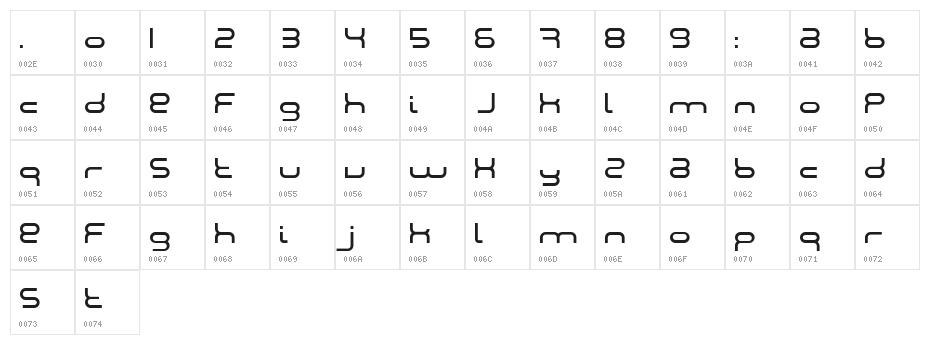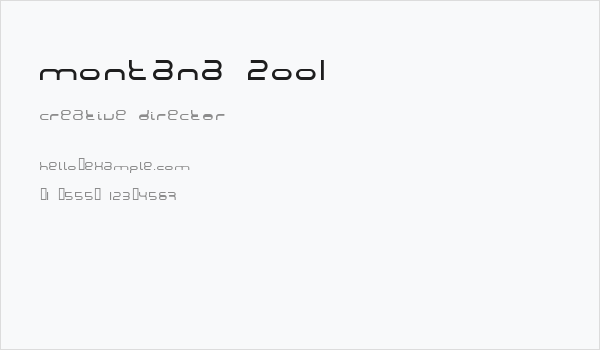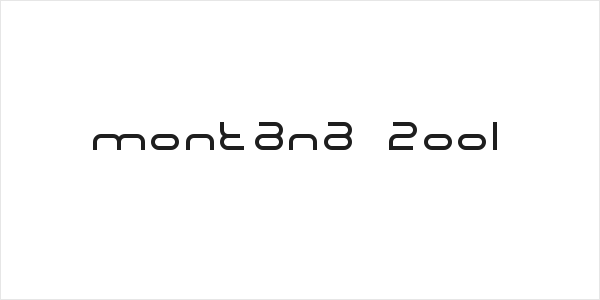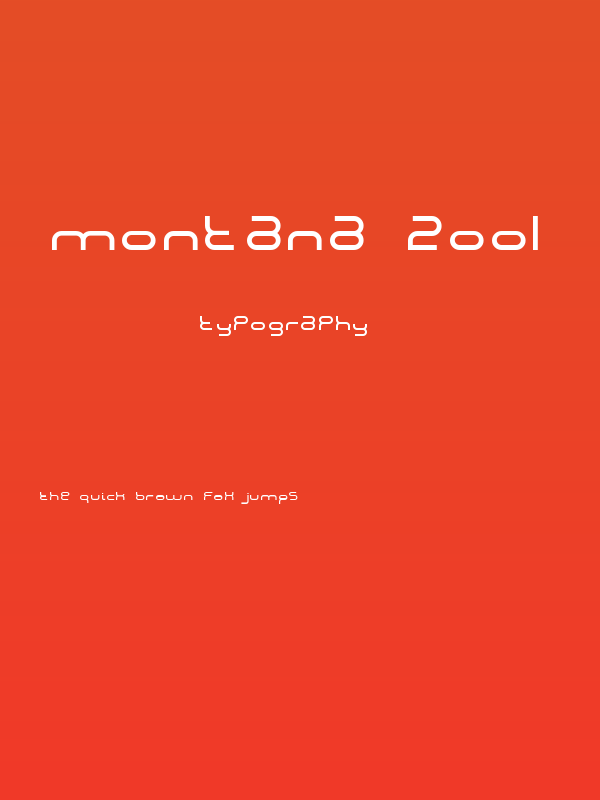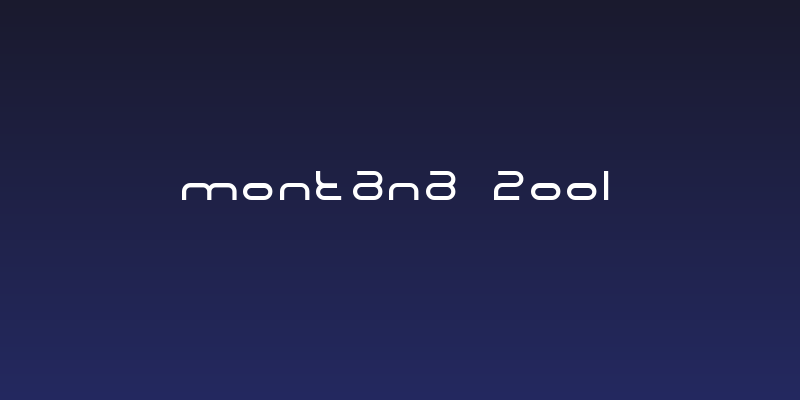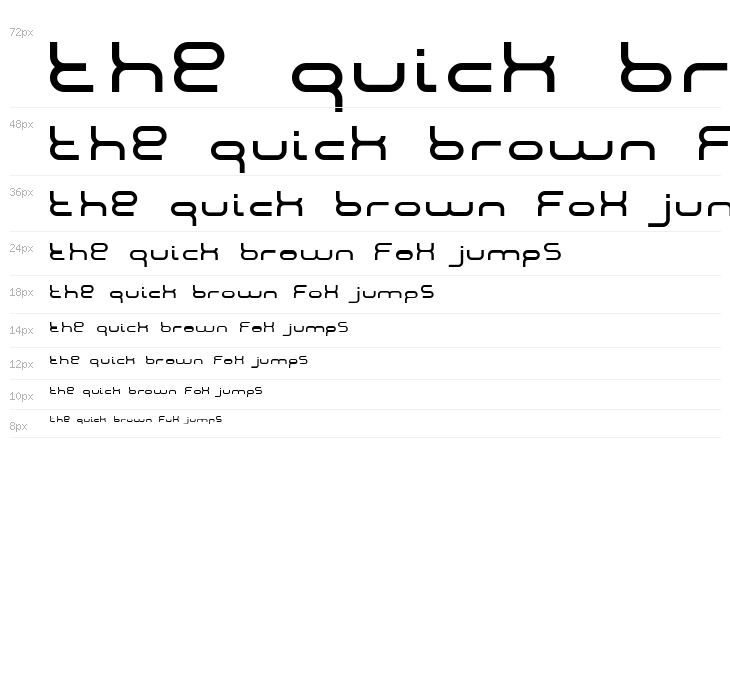
Montana 2001 Font
Montana 2001 Description
This font features a modern and futuristic design with rounded edges and a geometric structure. The characters are uniform in height, creating a cohesive and streamlined appearance. The uppercase and lowercase letters share a similar style, with slight variations in size and shape. The numerals are bold and distinct, maintaining the overall geometric theme. Special characters are designed with the same attention to detail, ensuring consistency across the font. The clean lines and minimalistic approach make it suitable for contemporary design projects.
| Use Case | Logos, Headlines, Digital Interfaces |
| Proposed Projects | Ideal for tech branding, modern websites, digital interfaces, and futuristic-themed designs. |